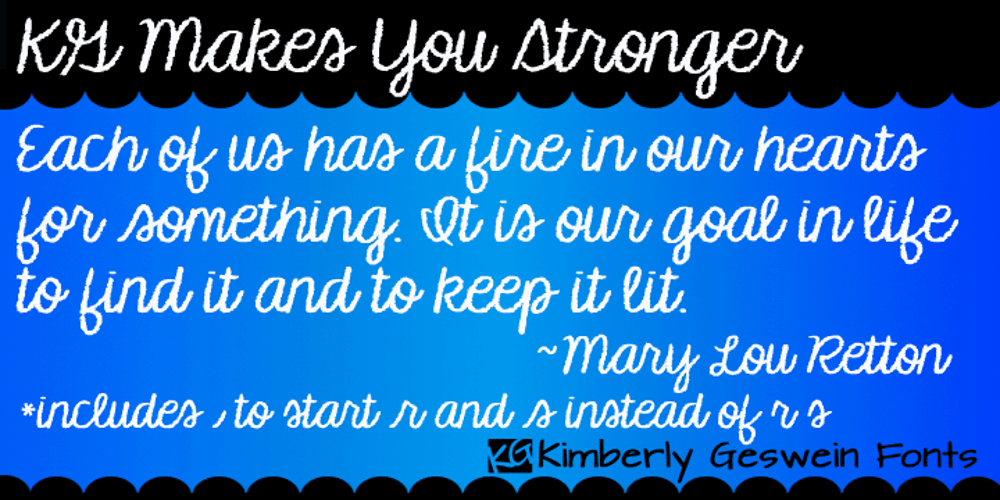
KG Makes You Stronger Font Family was designed by Kimberly Geswein and published by Kimberly Geswein. KG Makes You Stronger contains 1 styles and family package options. Crayon-style script handwriting. Can also work as a colored pencil or chalk handwriting. Perfect for teachers!